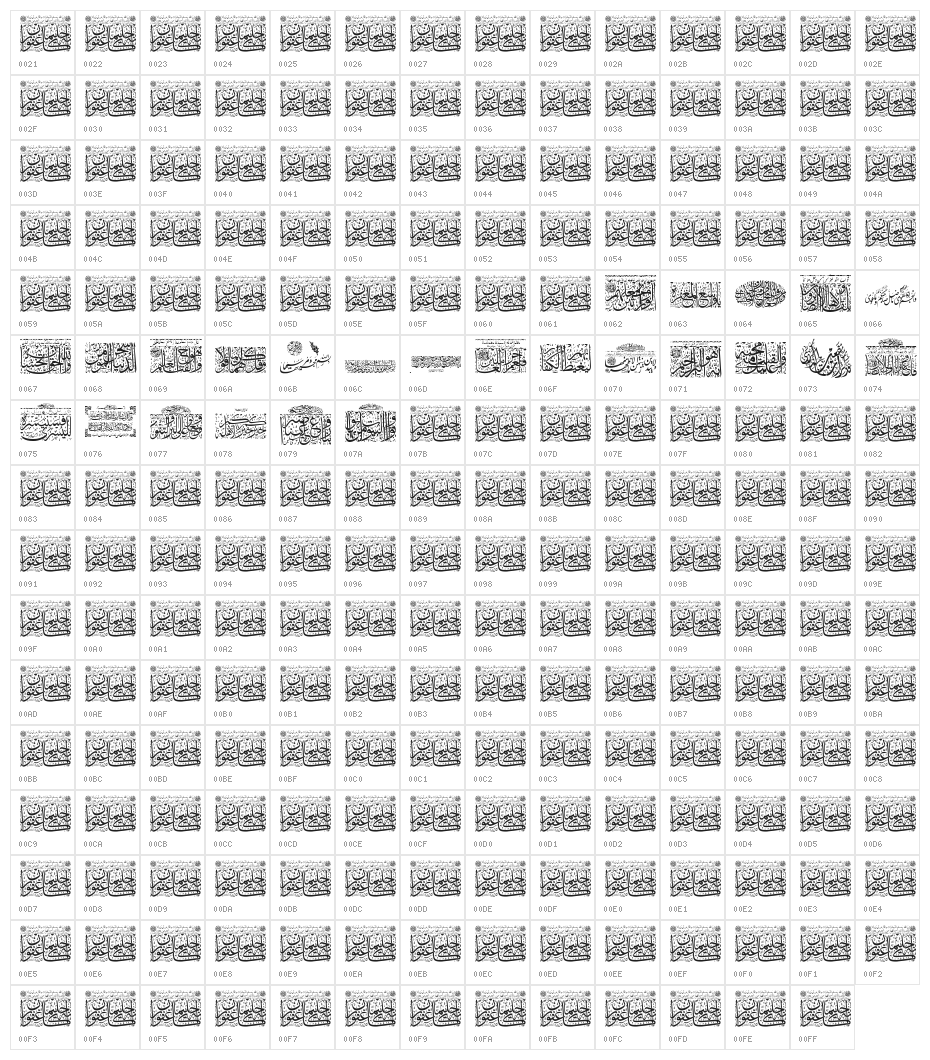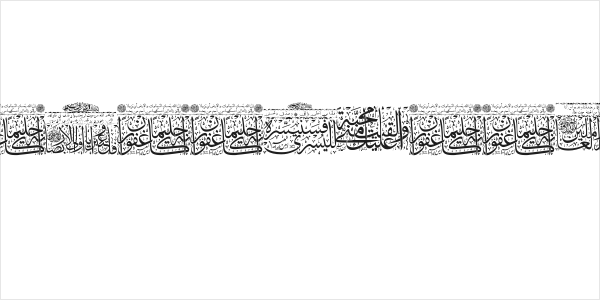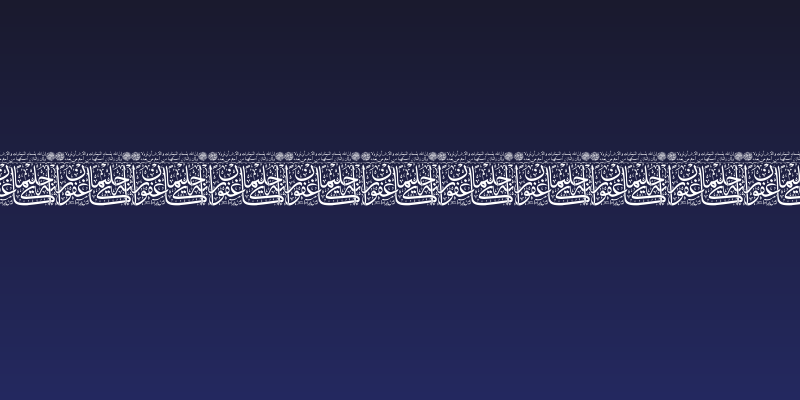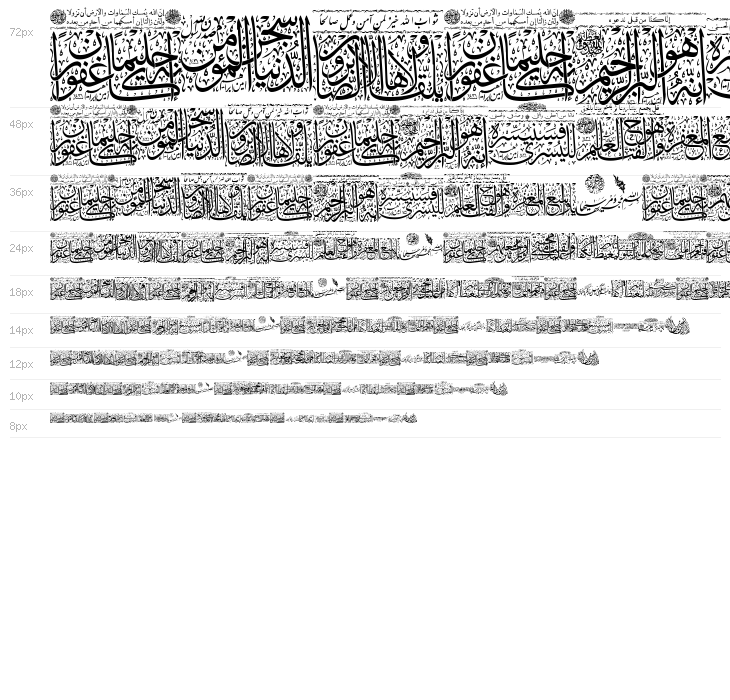
Aayat Quraan 10 Font
Aayat Quraan 10 Description
This image features a series of intricate Arabic calligraphy, showcasing verses from the Quran. The script is highly decorative, with elaborate flourishes and detailed ornamentation that is characteristic of traditional Islamic art. The characters are closely spaced, creating a continuous flow of text that is both visually striking and harmonious. The script is likely hand-drawn, reflecting a high level of craftsmanship and attention to detail. The overall appearance is elegant and sophisticated, with a strong emphasis on aesthetic beauty and spiritual significance.
| Overall Style | Traditional, Spiritual |
| Use Case | Decorative art, Religious texts |
| Proposed Projects | Ideal for religious publications, decorative art pieces, educational materials on Islamic culture, and spiritual merchandise. |